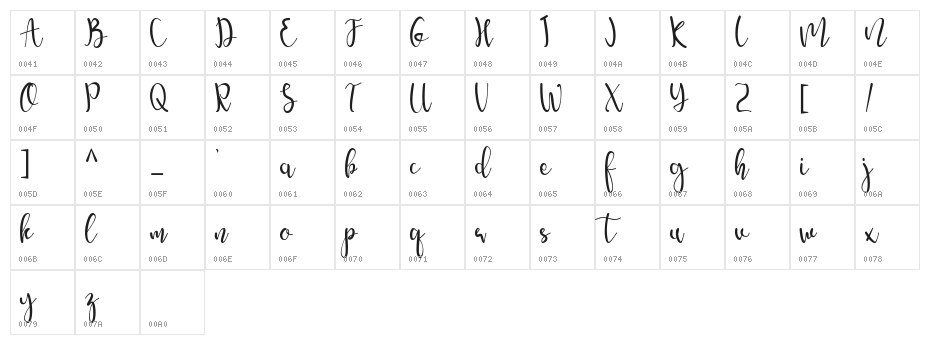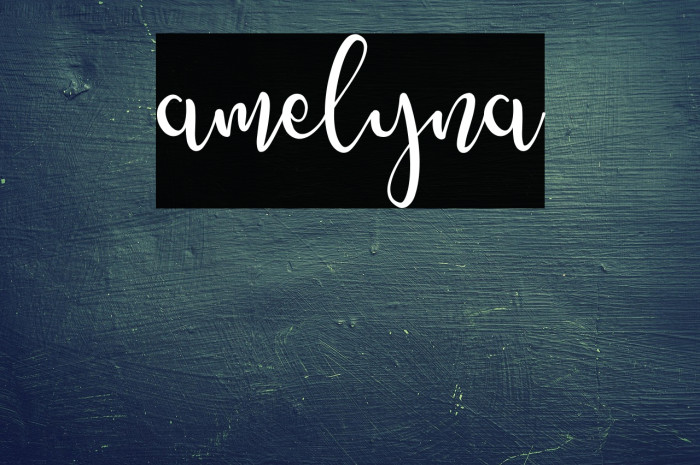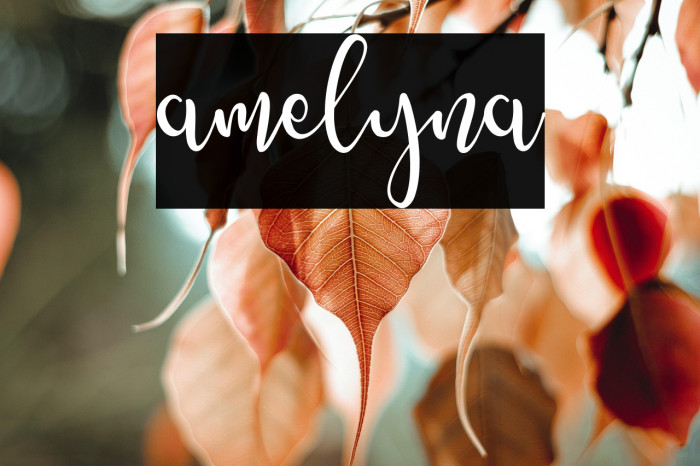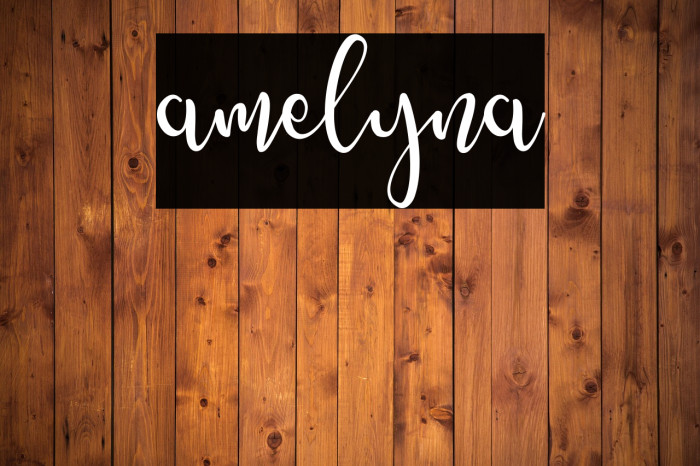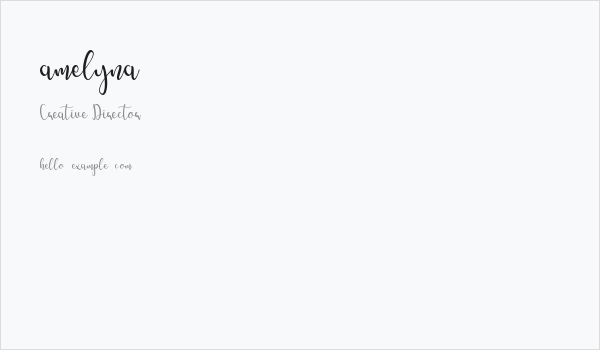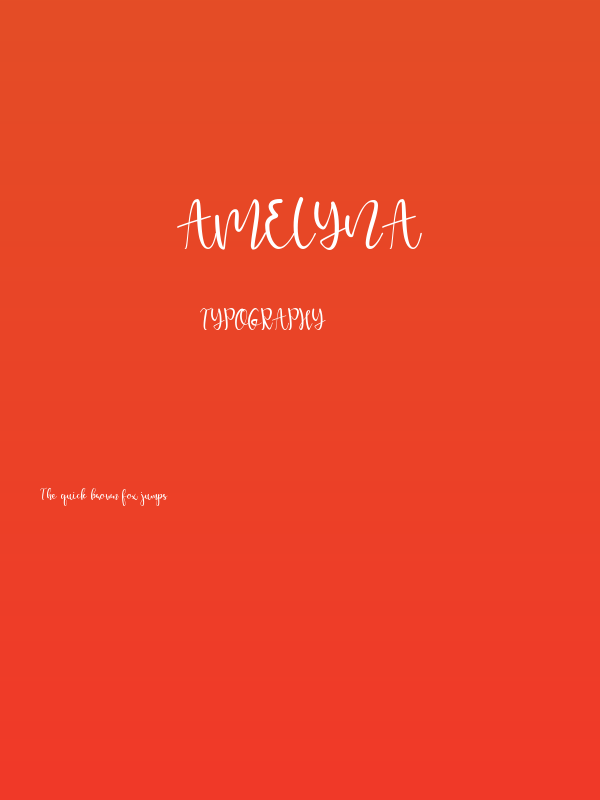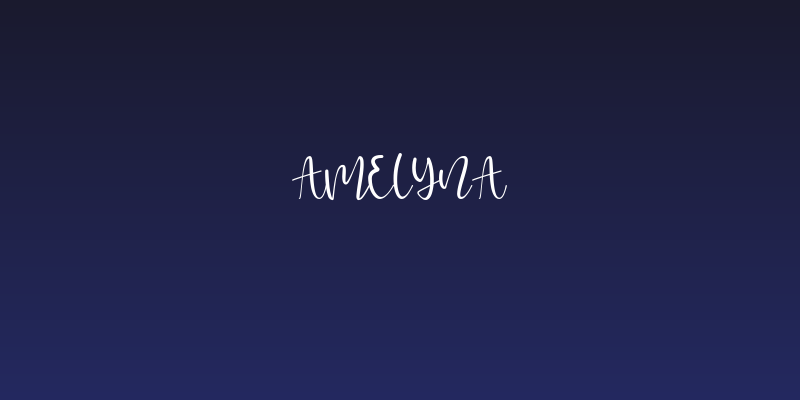
amelyna Font
amelyna Description
This font features a lively and expressive handwritten style, characterized by its fluid and flowing letterforms. The uppercase letters exhibit a playful yet elegant appearance, with varying stroke widths that add a dynamic quality to the text. The lowercase letters maintain a consistent style, with some letters featuring unique loops and swashes that enhance its artistic flair. The font's overall appearance is both whimsical and sophisticated, making it suitable for creative and decorative applications. The characters are well-spaced, allowing for readability while maintaining the font's distinctive personality.
| Proposed Projects | Ideal for wedding invitations, greeting cards, branding, and social media graphics. |